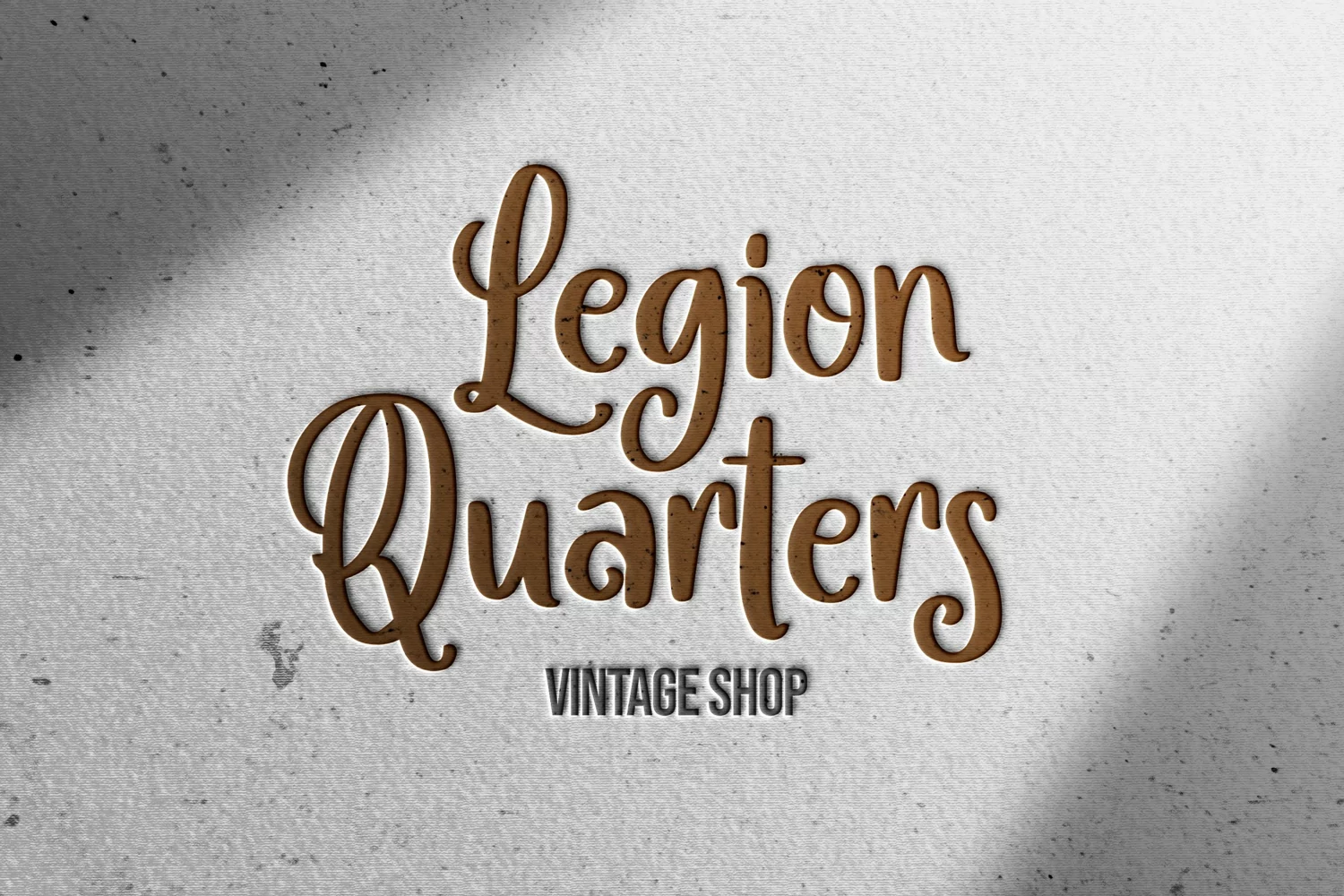
Easyfolks - Authentic Swirl Font that contain lowercase, uppercase, symbol, and also support multi language. There’s a lot ligatures in this font. This Font also comes with ligatures, alternates and many more. this font suitable for fashion, branding, catalog and other design what you want.